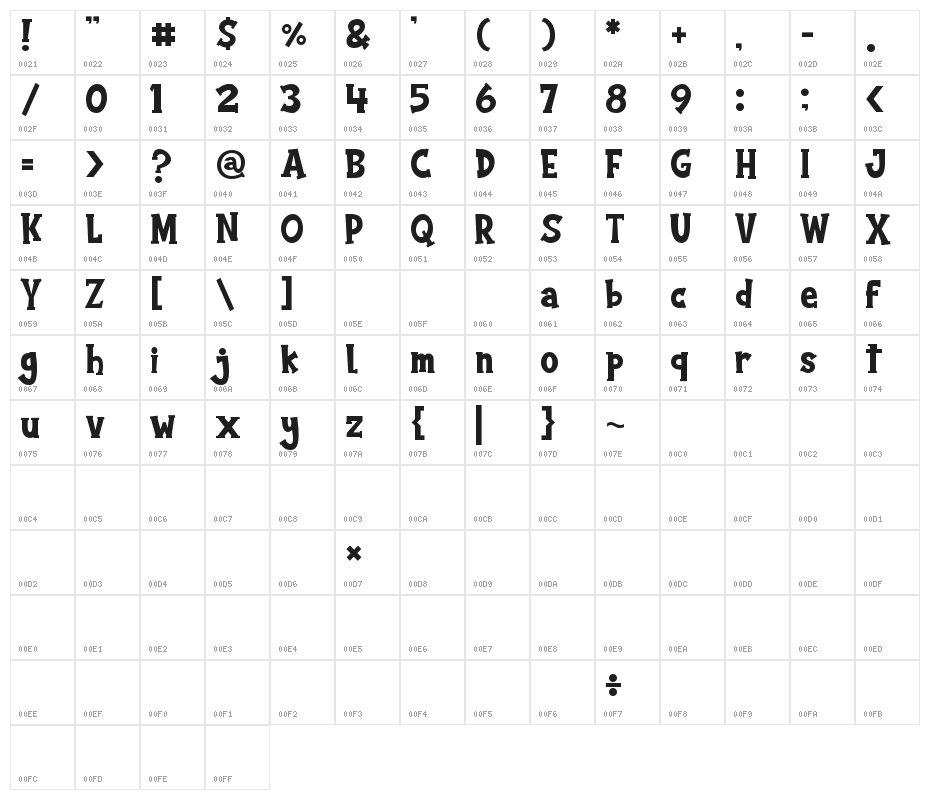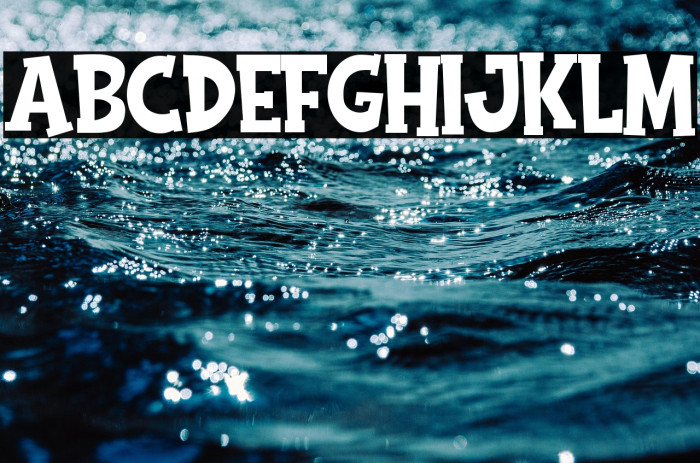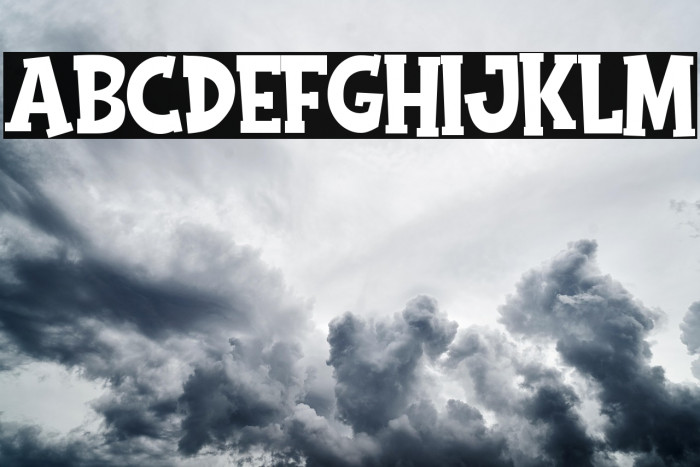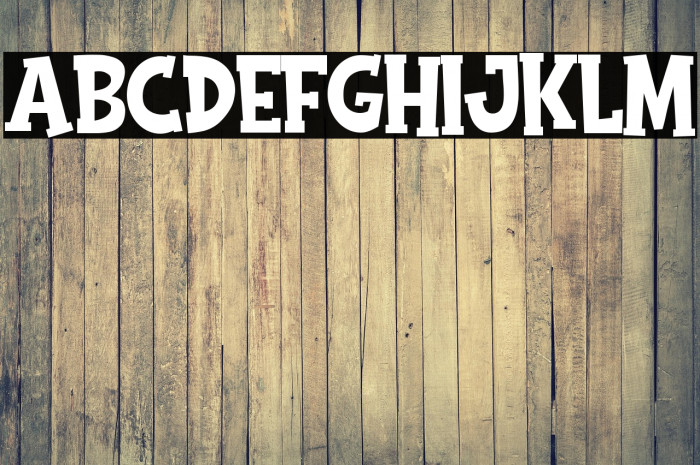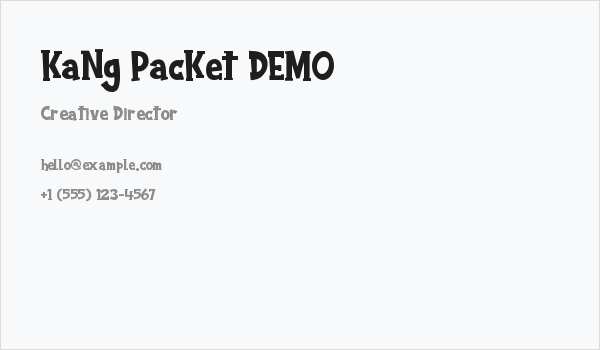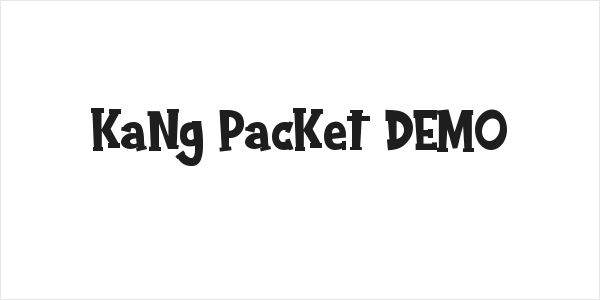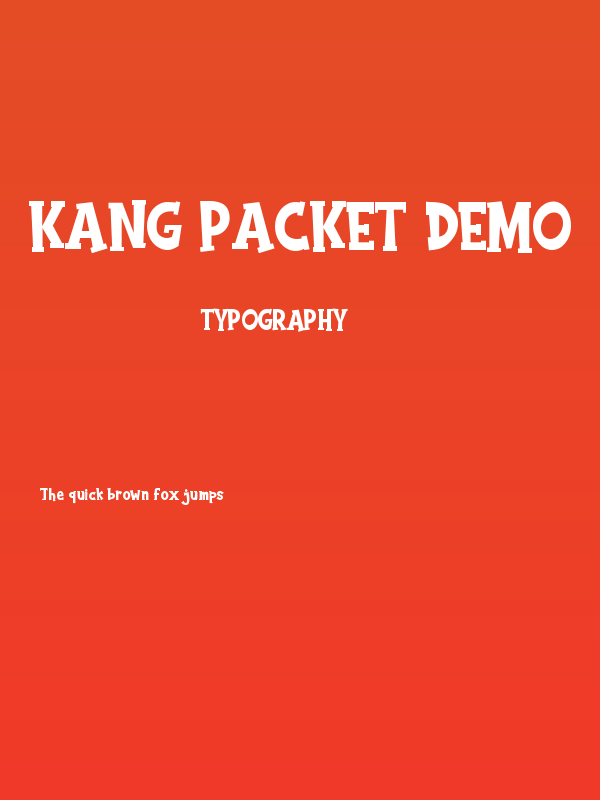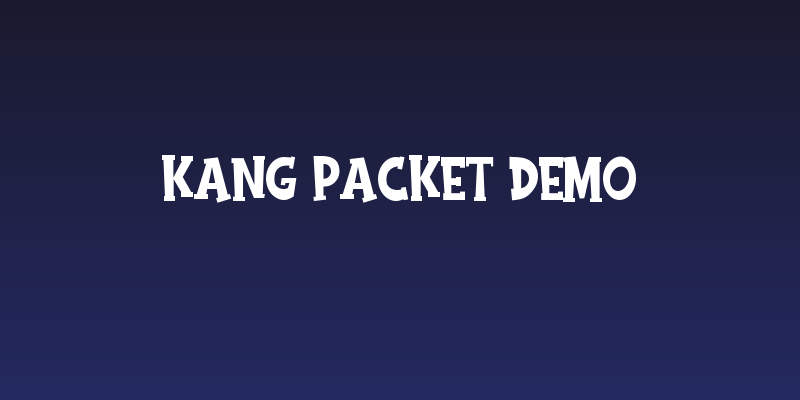
KaNg PacKet DEMO Font
KaNg PacKet DEMO Description
This font features a playful and bold design, characterized by its exaggerated curves and whimsical style. The uppercase letters are robust and slightly irregular, giving a sense of movement and energy. The lowercase letters maintain this playful aesthetic, with some characters having unique, exaggerated features that add to the font's charm. The numbers are equally bold and dynamic, fitting well with the overall style. The special characters are designed to match the lively and energetic feel, making this font suitable for creative and informal applications.
| Overall Style | Playful, Energetic, Whimsical |
| Proposed Projects | Ideal for children's books, playful branding, posters, and creative projects that require a fun and energetic typeface. |